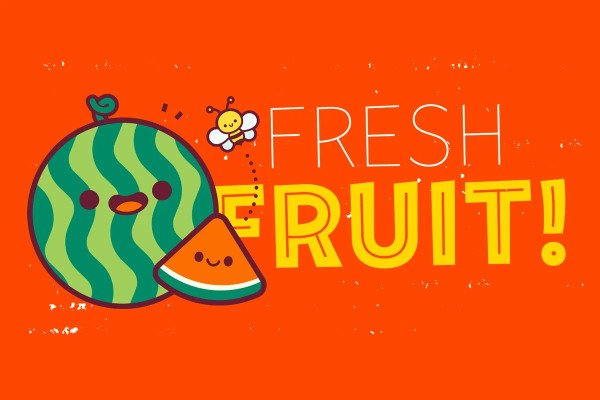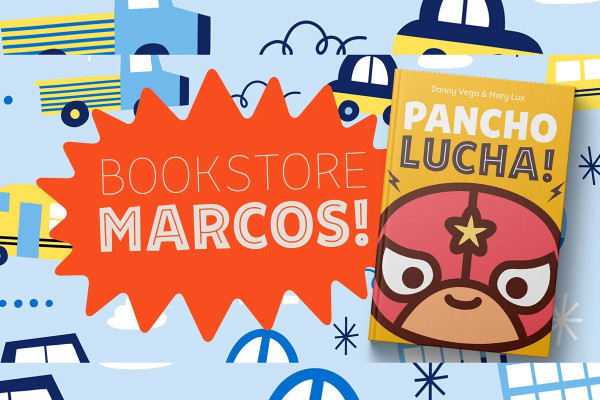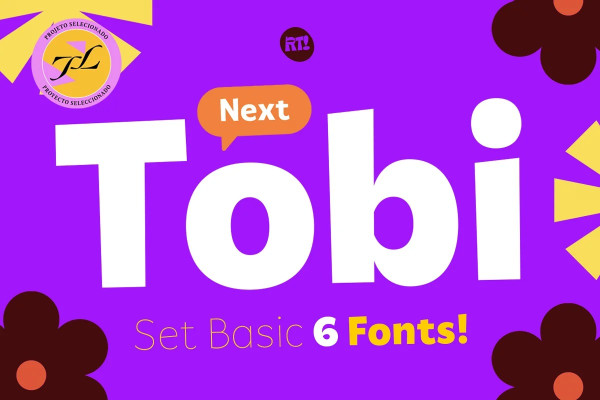
Tobi Next Font
Tobi Next Font is a sans serif font family. This typeface has twelve styles and was published by Rodrigo Typo. Designed by Rodrigo Araya Salas, Andrey Kudryavtsev and Franco Hernández
Tobi Next is the improved version of Tobi pro, which in the extended version contains 213 ligatures, contains Greek and Cyrillic, as well as contains its basic version at a lower cost